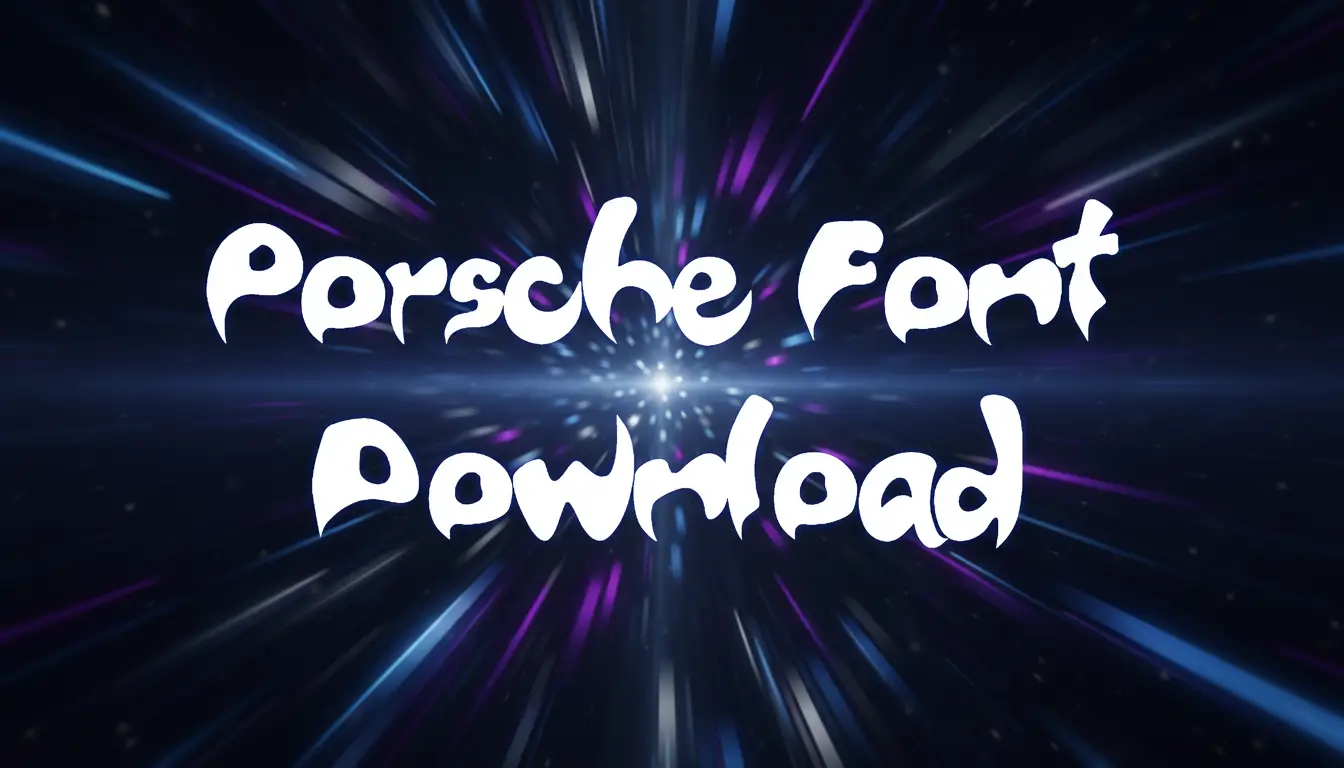
Porsche Font
Porsche is a fancy font. It's a decorative display font with plenty of personality, made to grab attention. It's a free download, and you can try it with your own text in the preview above first.
What You Can Type With Porsche
You get every letter from A to Z in both cases and all the numbers from 0 to 9, which means Porsche can handle full sentences, dates and prices. Common punctuation such as &, !, ? and @ is included as well. It also has the accented letters you need for Spanish, French, German, Portuguese and Italian.
Where Porsche Works Best
Designers usually reach for fonts like Porsche when they're making posters, logos and eye-catching headlines. Use it for one standout word or headline and let simpler fonts handle the rest.
Does Porsche support accented letters?
Yes. Porsche includes the accented letters needed for Spanish, French, German, Portuguese and Italian, so it works for more than just English.